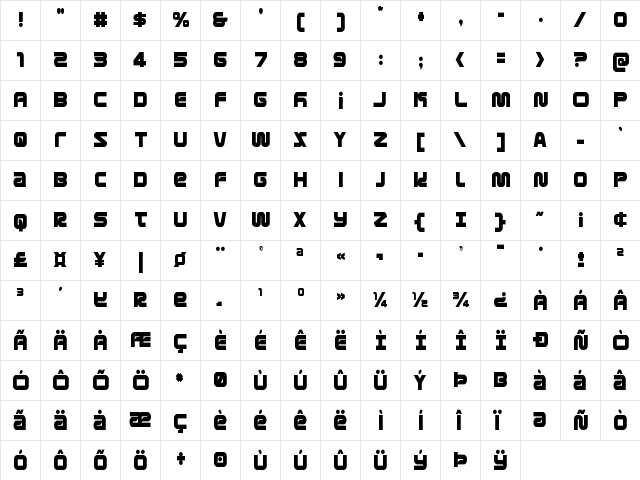
Metronauts Condensed Condensed
Design Context for Metronauts Condensed Typeface
Metronauts Condensed is a composed and adaptable typeface that performs quietly and consistently across a wide range of design contexts. Its narrow stance lets it pack a punch even in space-constrained designs.
Pro Tip: Use Metronauts Condensed in both headline and body roles to test its range before committing to a single application.